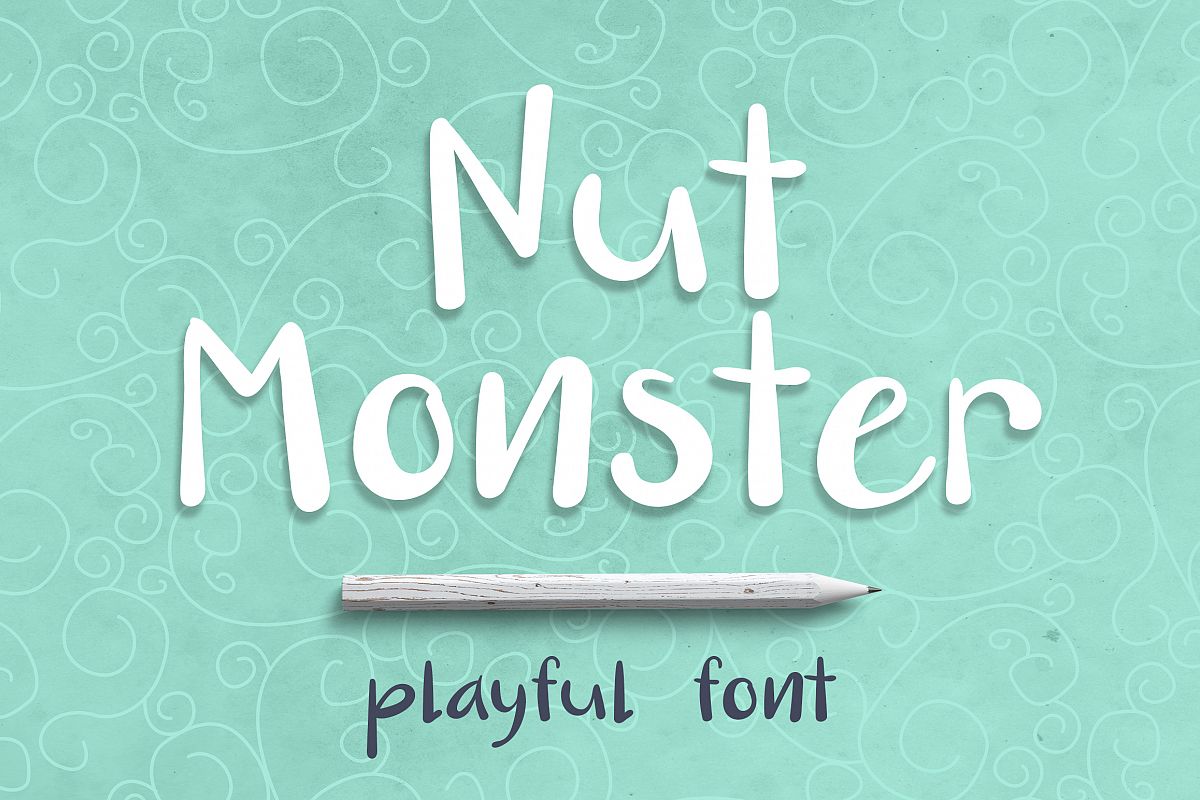
Nut Monster - handdrawn font
Nut Monster is a playful decorative handwritten font. It is fun and contrast, made in brush calligraphy-style. Perfect for greeting cards, home decor, quotes, posters, kids accessories, DIY projects and much more!